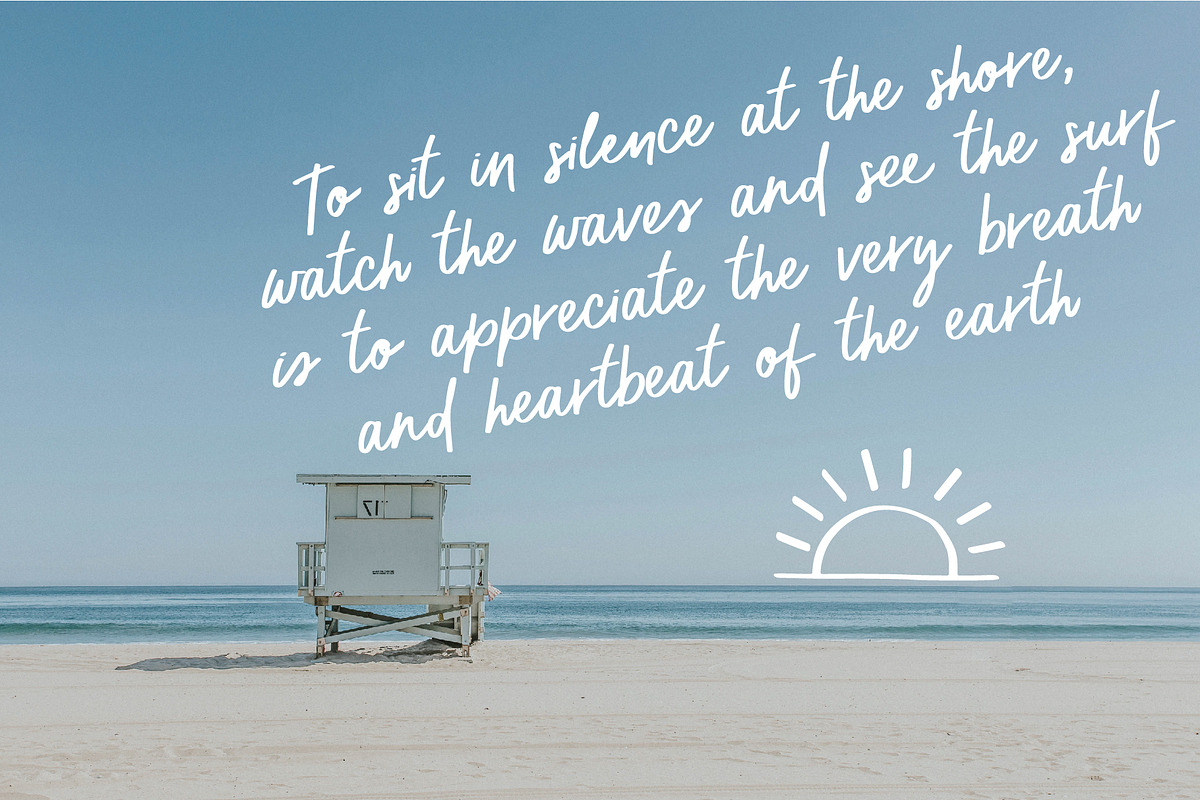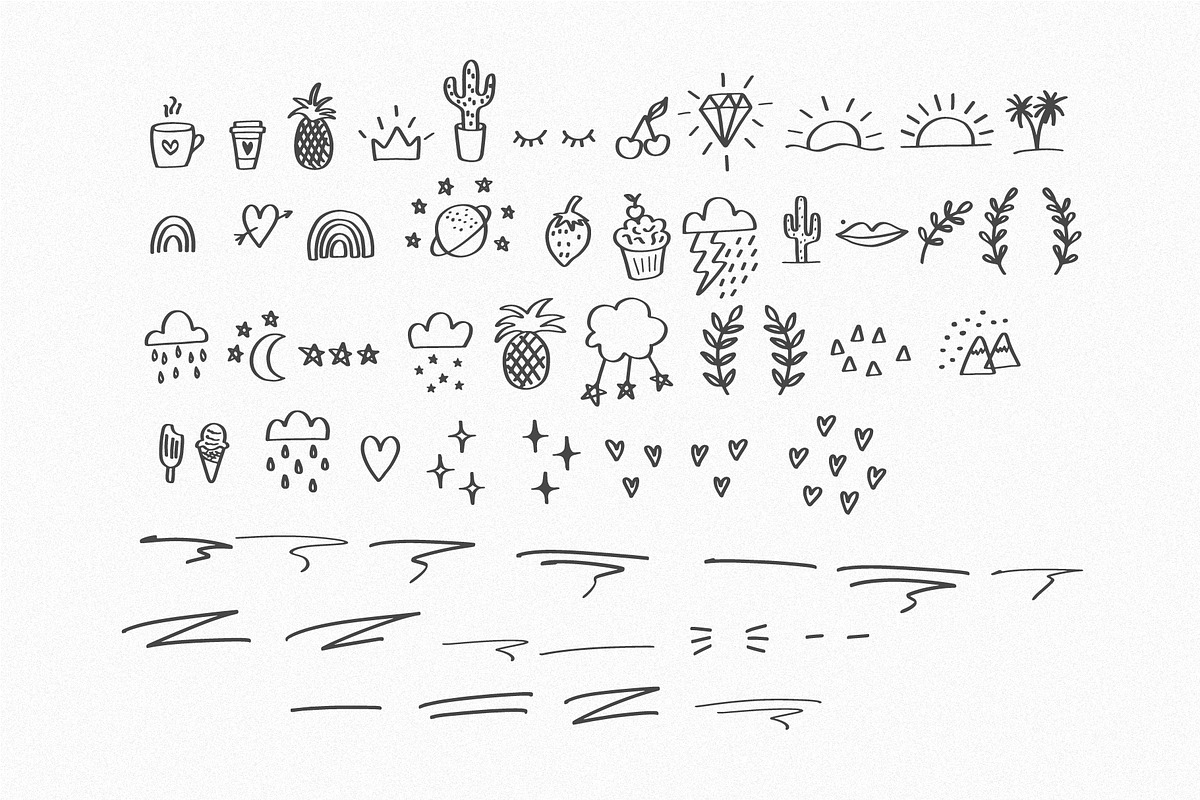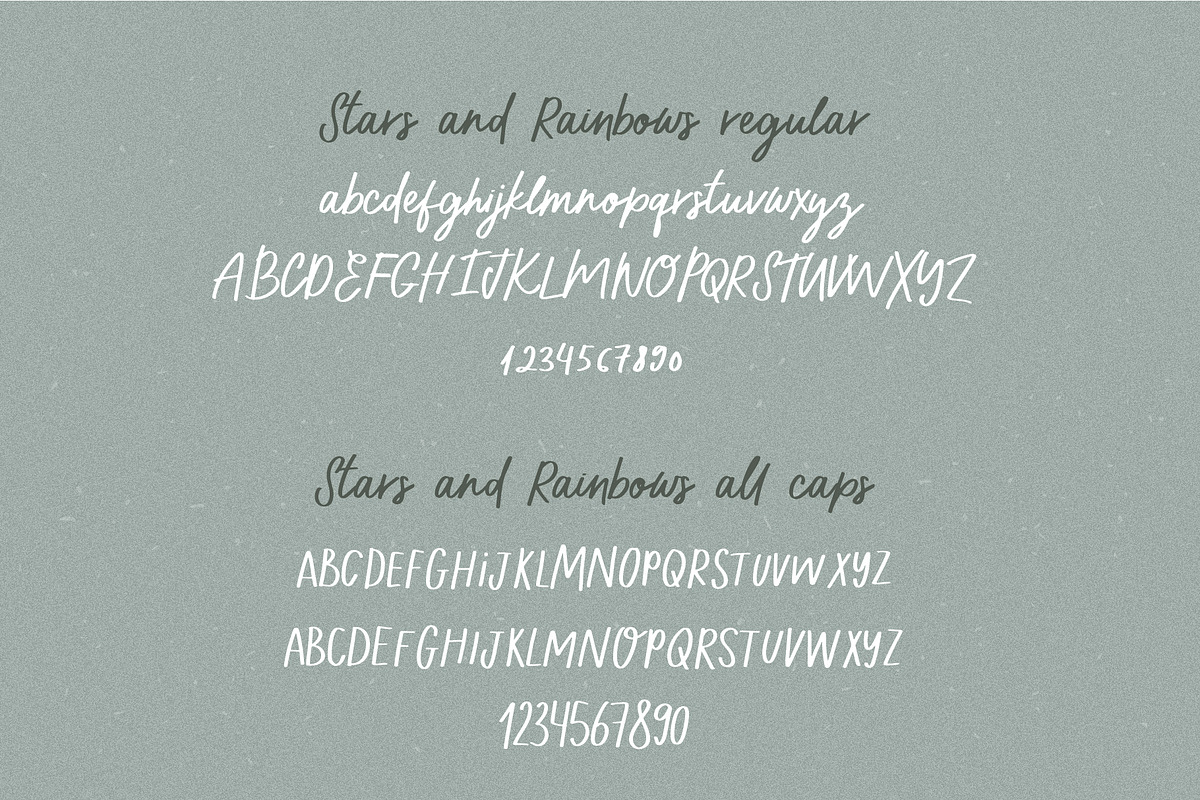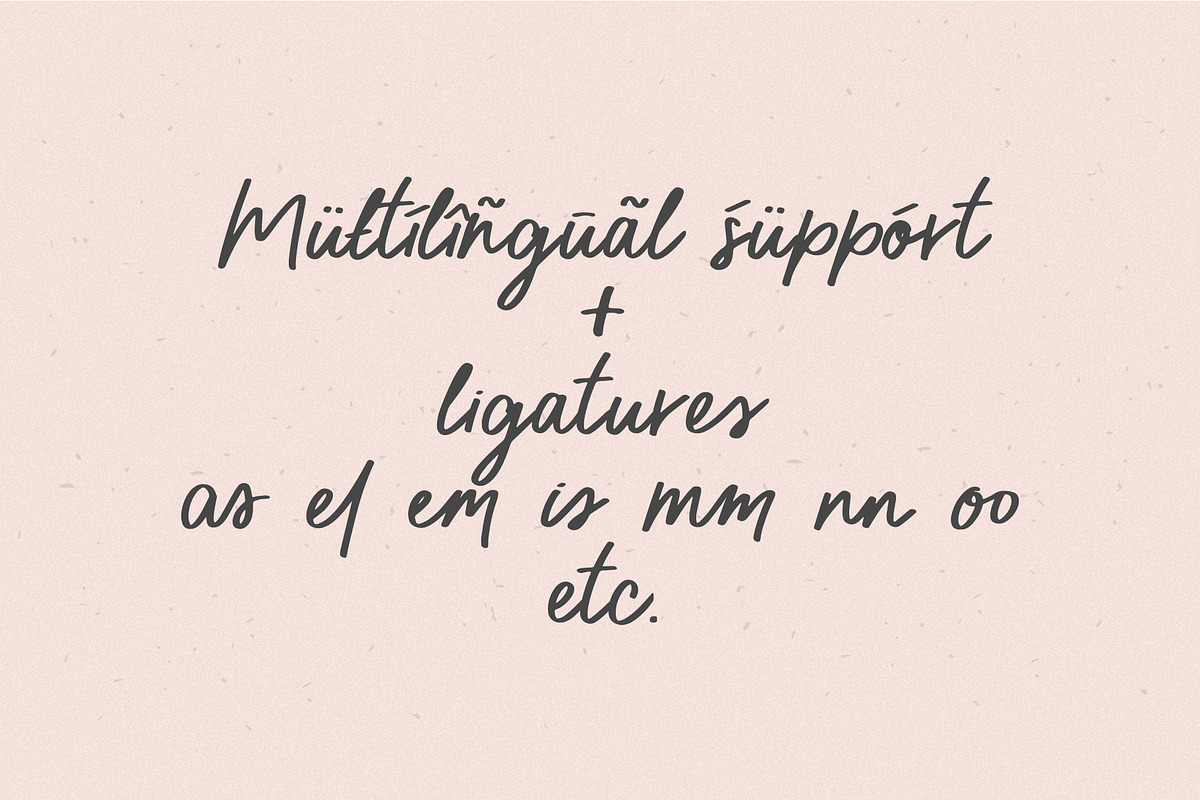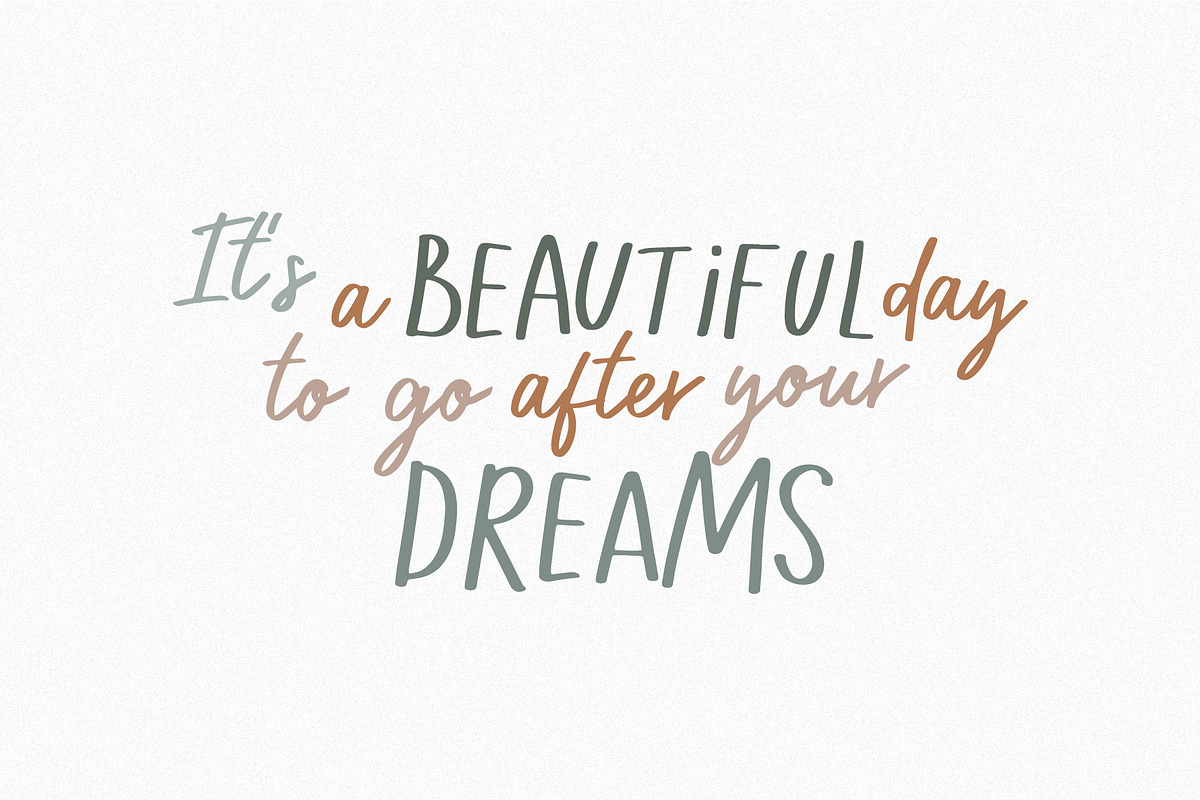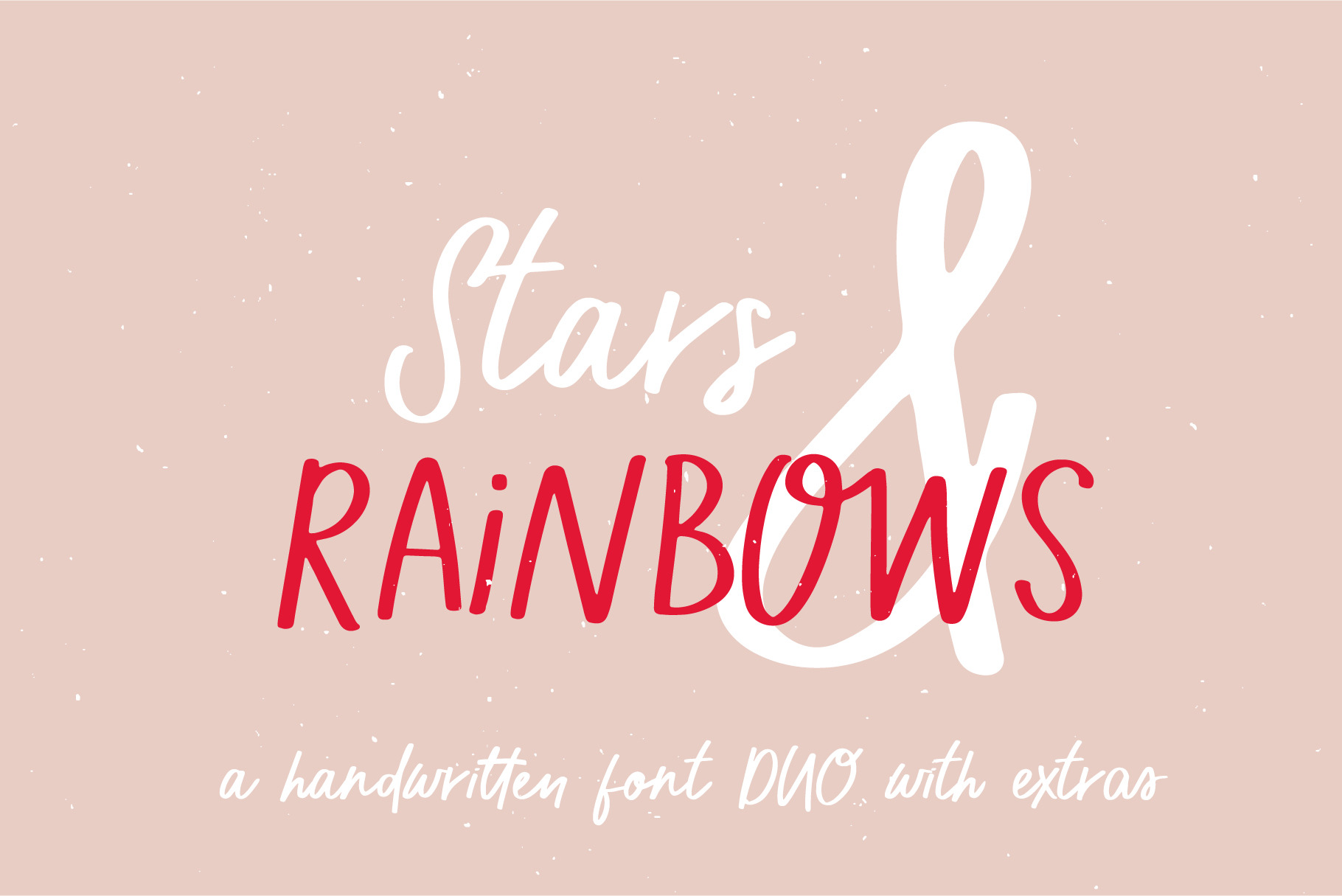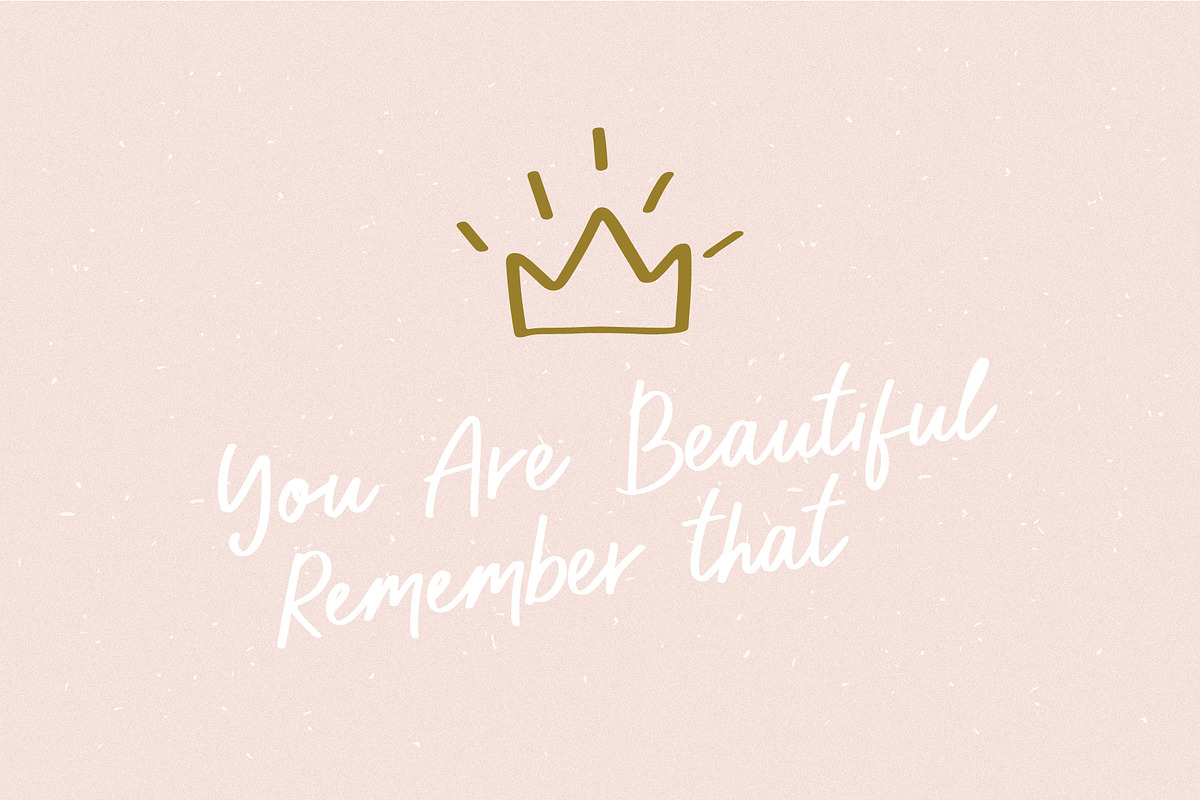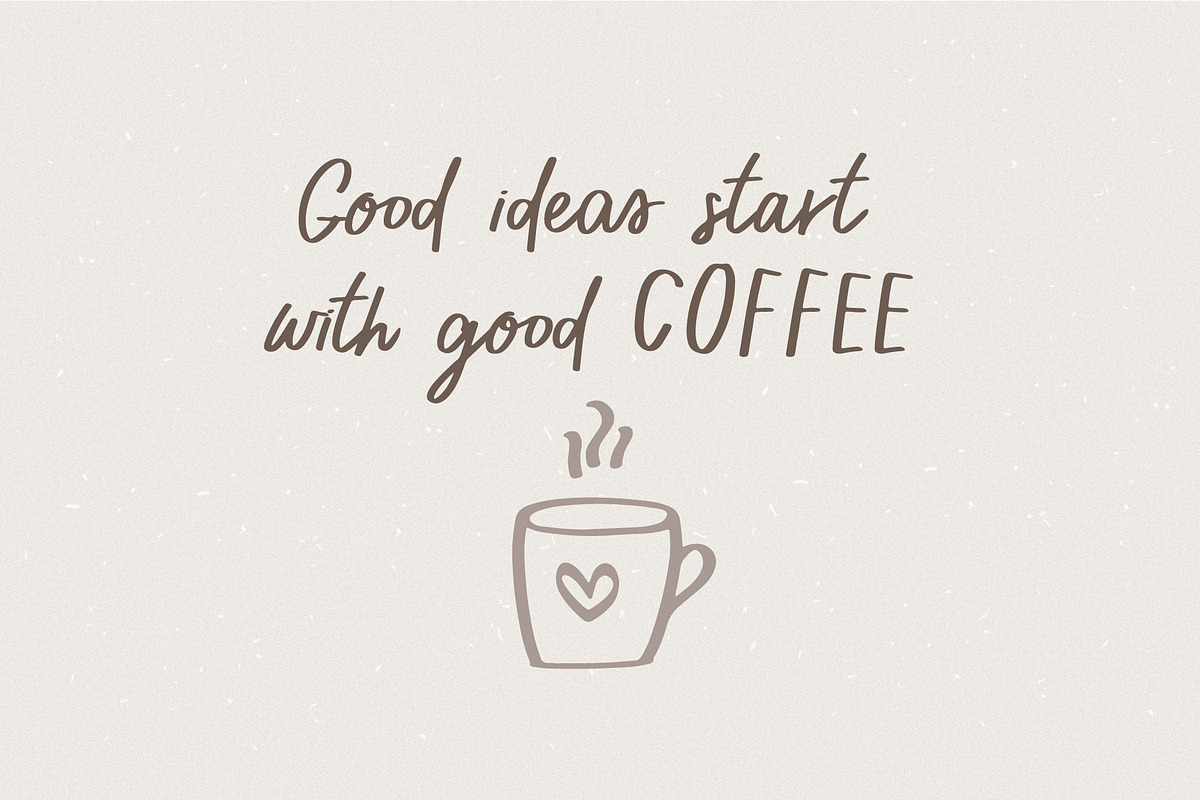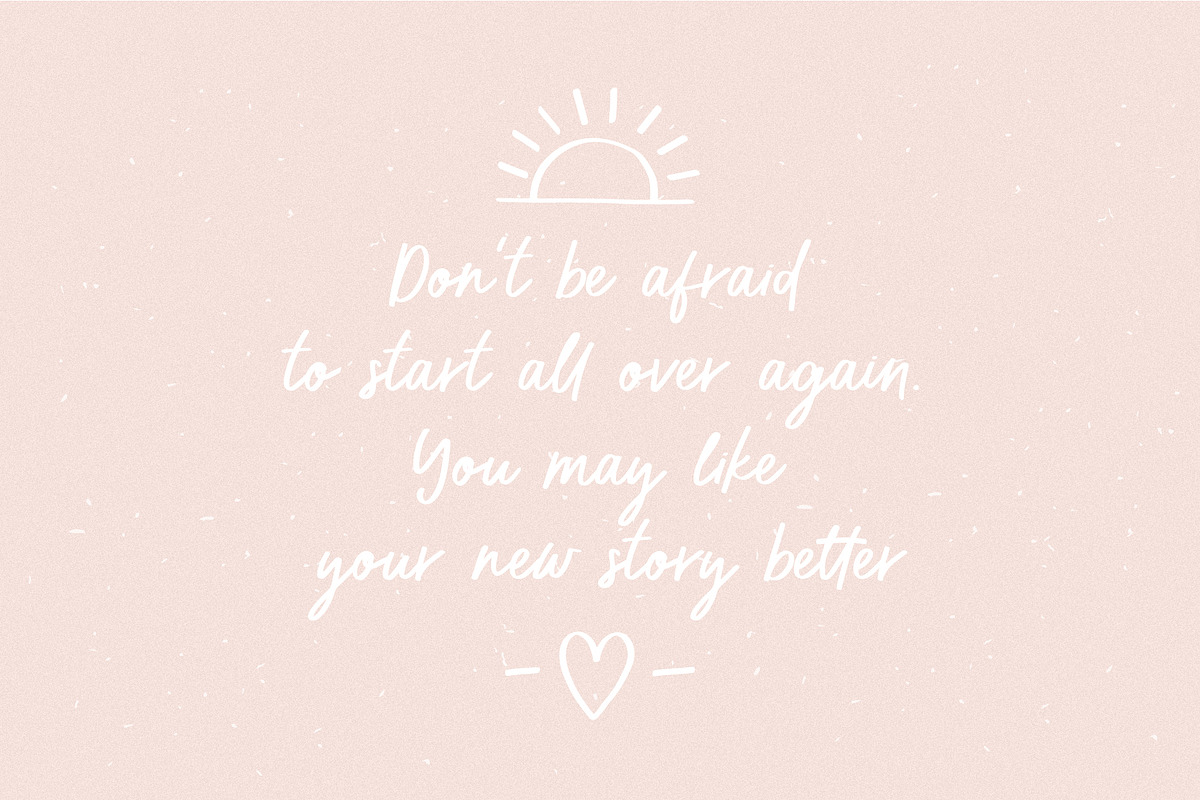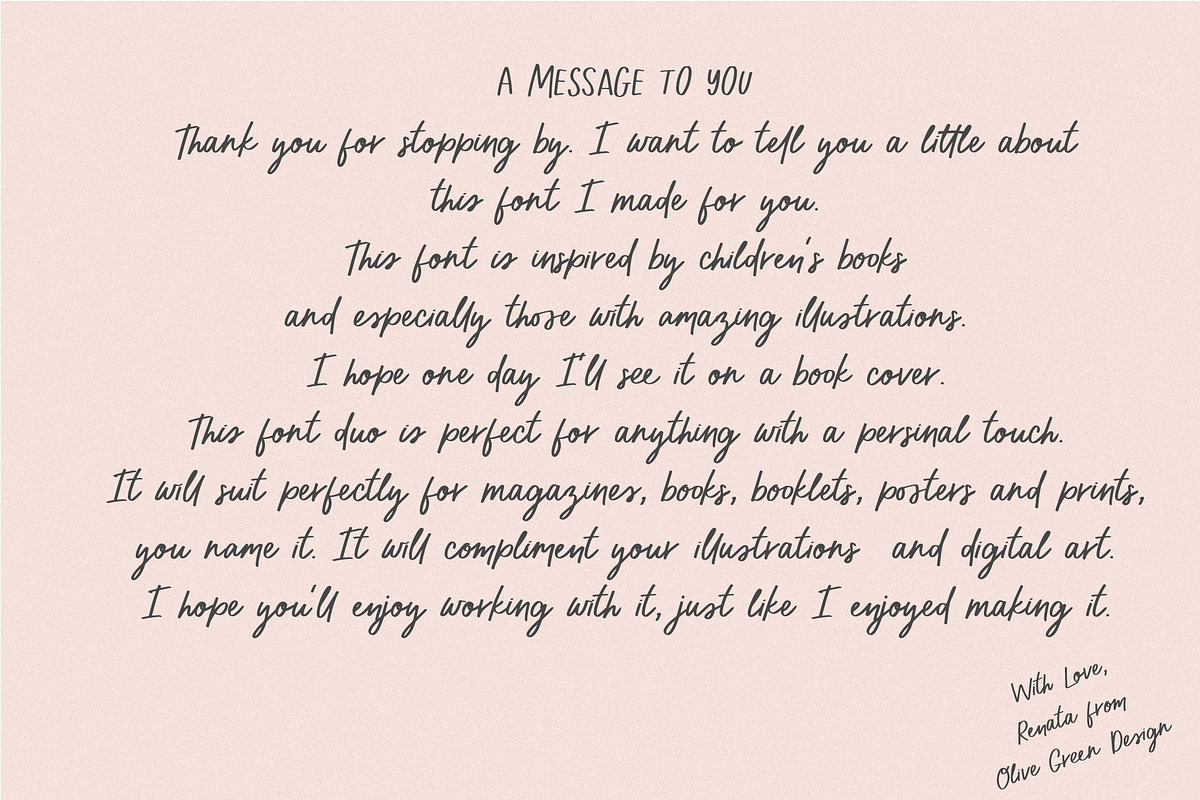
Stars and Rainbows Font Combo
Introducing a new hand lettered font duo plus set of doodles (drumroll) Stars and Rainbows Font Combo
This font will perfectly compliment your design in your book, children's book, packaging, greeting cards, illustrations, quotes, magazines, prints and posters and much more.
The combo includes handwritten script font, casual marker font with all caps and a set of sweet and cute doodles as a font and .ai file
Turn on the ligatures to get the full benefits of hand-written font
Müłtílîñgūãl śüppórt is included